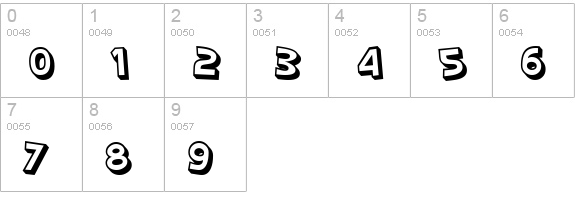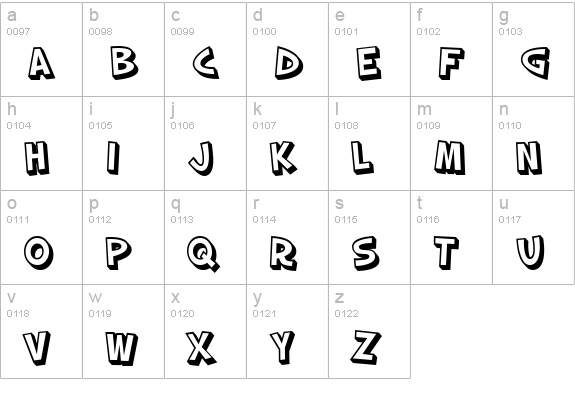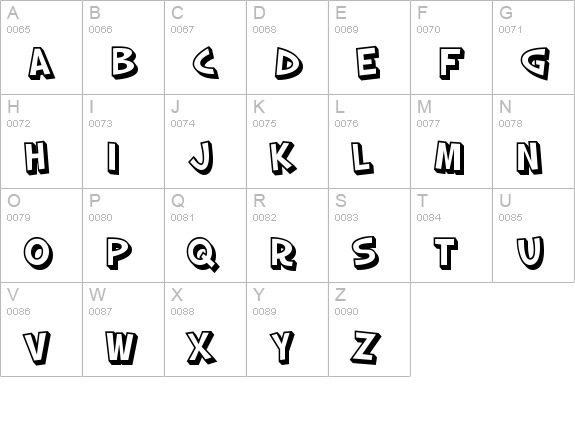
SF Slapstick Comic Shaded Font Details
SF Slapstick Comic Shaded font is a delightful and whimsical typeface that is perfect for adding a touch of comedy and playfulness to your designs. With its exaggerated and exaggeratedly shaded characters, this font captures the essence of slapstick humor and brings it to life on the page. Each letter of SF Slapstick Comic Shaded font is carefully crafted with a unique shading effect, giving it a three-dimensional appearance that jumps off the page. The bold and exaggerated strokes of the characters enhance the comedic effect, making this font a standout choice for comic books, cartoons, advertisements, and any other project that requires a touch of lightheartedness. What makes SF Slapstick Comic Shaded font even more appealing is that it is available for free download at FontsMarket.com. This means that you can easily access and use this font in your projects without having to worry about any additional costs. Whether you are a designer working on a commercial project or a hobbyist looking to add some fun to your personal creations, SF Slapstick Comic Shaded font is a fantastic choice. With its easy readability and distinct style, SF Slapstick Comic Shaded font is versatile and can be used in various contexts. From children's books to party invitations, from website headers to signage, this font adds a touch of humor and personality to any design. Its playful nature and bold appearance make it an excellent choice for creating eye-catching and memorable visuals. So, if you are in search of a font that combines humor, creativity, and a touch of whimsy, SF Slapstick Comic Shaded font is the perfect choice. Download it for free at FontsMarket.com and let your imagination run wild with the endless possibilities this font offers.